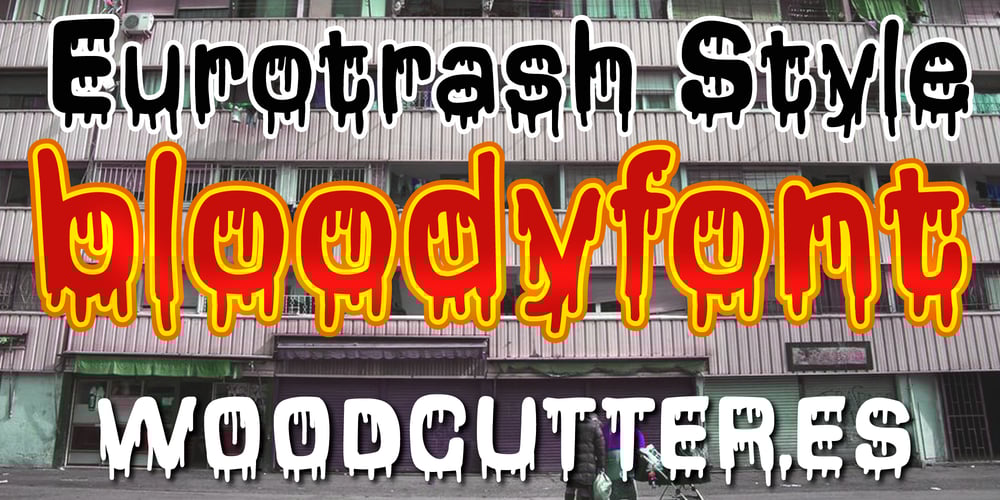
Eurotrash Style Font Family was designed by Jordi Manero and published by Woodcutter. Eurotrash Style contains 1 styles and family package options. “Eurotrash Style” is a typeface crafted with manual strokes and blood drips, adding a macabre and bold touch to your designs. It includes uppercase, lowercase, and accents, making it versatile for various projects. This typeface is a wild revision of a classic font, offering a modern and dark twist. Perfect for posters, covers, and titles needing a strong and distinctive visual impact. “Eurotrash Style” brings a punk and rebellious atmosphere, ideal for projects aiming to stand out with a unique and provocative style.